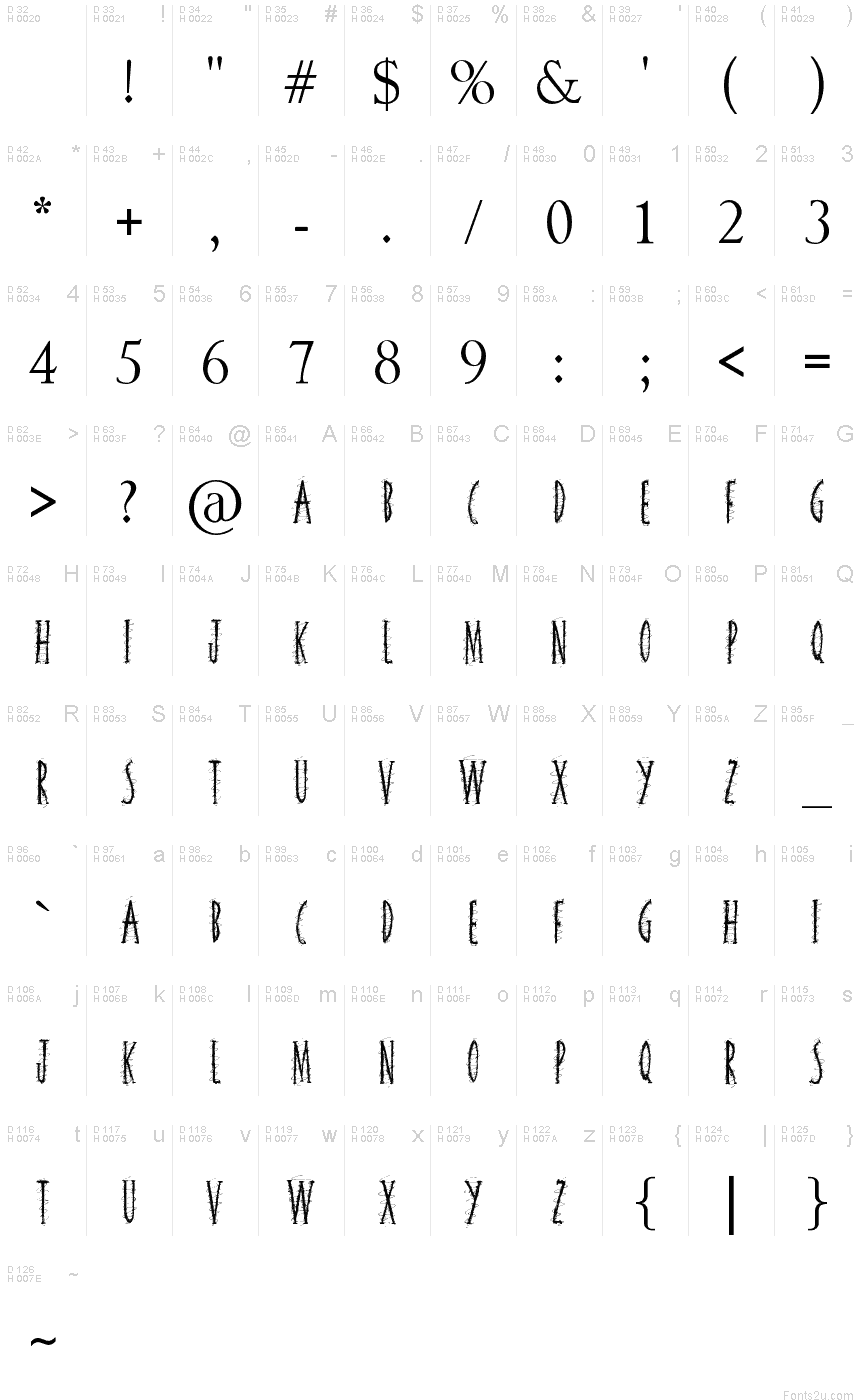
Squiggley Brown from TattooWoo.com is a free trash script with tall, narrow letters and a scratched, restless finish. Heavy vertical strokes are wrapped in loose loops and stray pen lines, as if each character has been repeatedly traced. The uneven edges keep it raw.
Music posters are its strongest setting, with frantic marks that echo punk, industrial, or experimental artwork. The same tangled drawing suits tattoo studio branding, horror event graphics, and rebellious apparel, turning words into illustration.